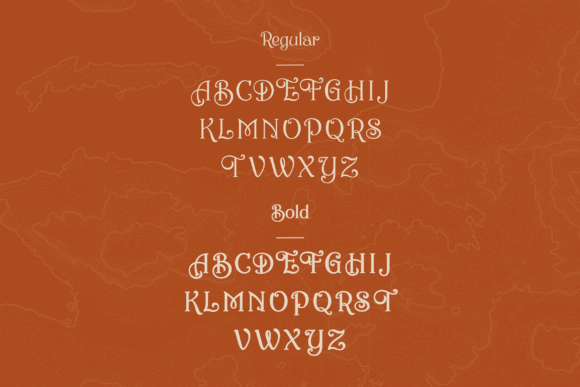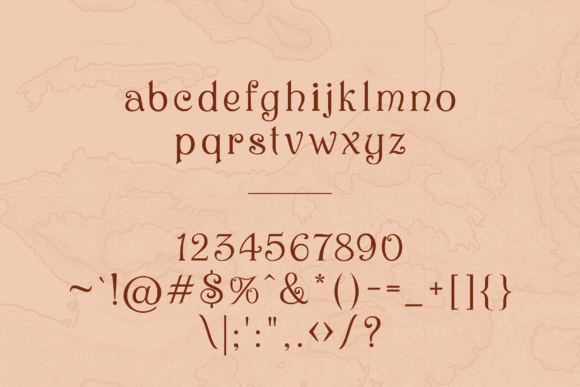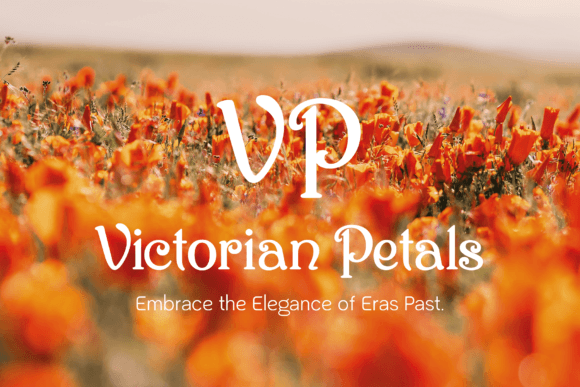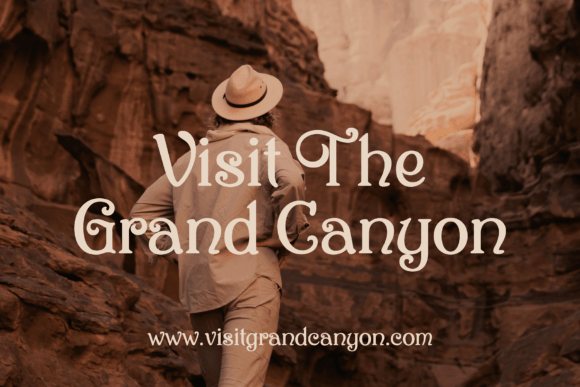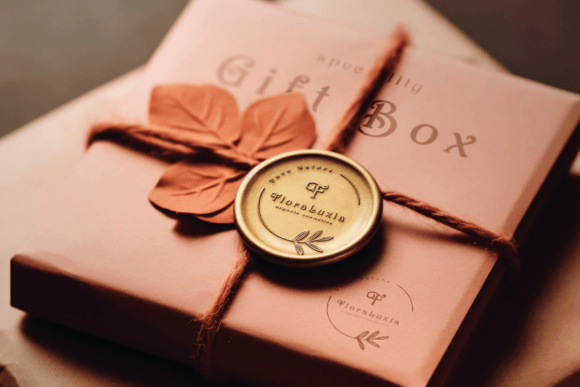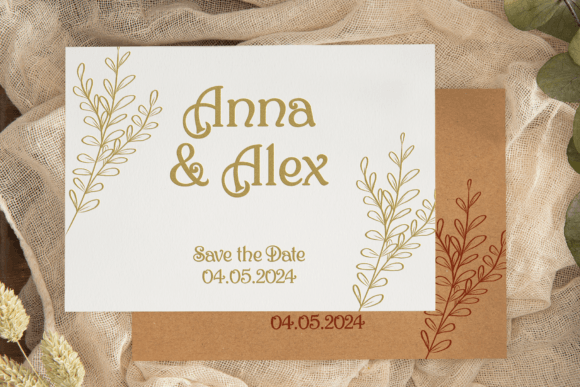
Discover the Timeless Elegance of Antique Atlas Font
In the vast and varied world of typography, certain fonts stand out for their unique ability to transport us to another era. Antique Atlas is one such vintage typeface that effortlessly captures the essence of a bygone era with its stunning design. This font is a harmonious blend of traditional charm and contemporary precision, making it an exceptional choice for projects that require a touch of nostalgia without compromising on clarity and readability.
The Aesthetic Appeal of Antique Atlas
The typeface’s clean lines and beautifully crafted characters exude an air of sophistication and elegance, making every word set in Antique Atlas a memorable experience. Its aesthetic appeal is matched by its versatility, seamlessly fitting into a wide array of design contexts from classic book covers to elegant invitations. Whether you’re working on a project that demands a classic look or simply want to add a touch of vintage charm, Antique Atlas is sure to impress.
Beyond Looks: The Functionality of Antique Atlas
This font isn’t just about looks; it’s a functional powerhouse too. Antique Atlas strikes a perfect balance between decorative flair and practical application, ensuring that its vintage charm enhances rather than overpowers the message it conveys. Its readability is one of its standout features, making it suitable for both headings and body text. This versatility is a significant advantage for designers who need a font that can perform well across different design contexts.
Perfect Applications for Antique Atlas
The typeface is particularly well-suited for:
- Classic Book Covers: Add a touch of nostalgia and sophistication to your book covers with Antique Atlas, making them stand out on bookshelves.
- Elegant Invitations: Whether it’s a wedding, a formal gala, or any event that demands elegance, Antique Atlas can add the perfect level of class and refinement.
- Branding and Logotypes: For brands looking to convey a sense of tradition, reliability, and timelessness, Antique Atlas can be a valuable asset in creating a distinctive and memorable brand identity.
- Packaging Design: For products that wish to stand out with a classic or vintage appeal, this font can add an extra layer of charm and appeal.
Why Designers and Crafters Love Antique Atlas
Designers and crafters appreciate fonts that offer both beauty and functionality, and Antique Atlas delivers on both fronts. Its unique blend of vintage charm and modern usability makes it a favorite among creative professionals. Here are a few reasons why:
- Unique Character: In a sea of modern and minimalist fonts, Antique Atlas stands out with its distinctive character and style.
- Versatility: Its adaptability to various design projects, from digital to print, makes it a versatile tool in any designer’s arsenal.
- Emotional Connection: Fonts like Antique Atlas have the power to evoke emotions and create a connection with the audience, something that more generic fonts may fail to achieve.
Antique Atlas is more than just a font; it’s a design element that can elevate your projects with its timeless elegance and versatility. Whether you’re a designer looking for a unique touch for your next project or a crafter seeking to add a vintage flair to your creations, Antique Atlas is an excellent choice. Its blend of classic charm and functional design ensures that your work not only looks stunning but also communicates effectively. Discover the potential of Antique Atlas and let its beauty transform your designs.